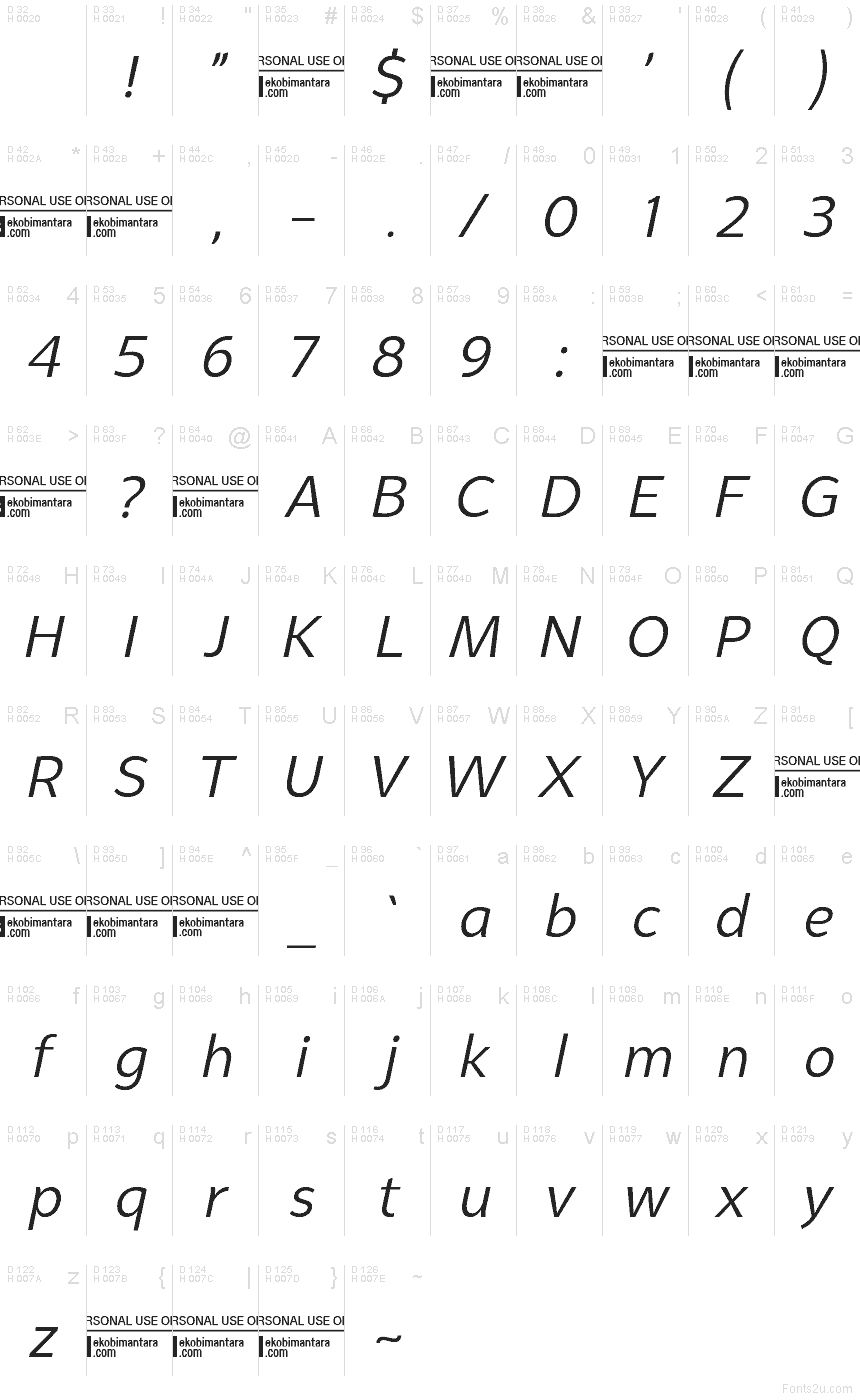
Syabil Trial Italic
Syabil Italic font by Eko Bimantara is a free italic humanist sans serif font. When you need emphasis that doesn’t shout, it delivers: a gentle forward lean, open apertures, and smooth, ink-like curves give copy motion without sacrificing clarity. The strokes feel steady and clean, so subheads and snippets read fast while still looking warm and contemporary across the Syabil family.
This free font shines on brand taglines, editorial subheads, pull quotes, packaging notes, UI highlights, and social graphics. Using Syabil Italic brings a subtle, confident rhythm that guides the eye and keeps layouts airy. Pair with Syabil Regular for body text, and add a touch of tracking at small sizes to keep the texture crisp.